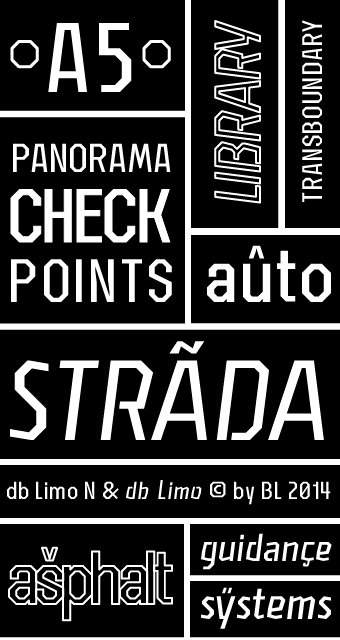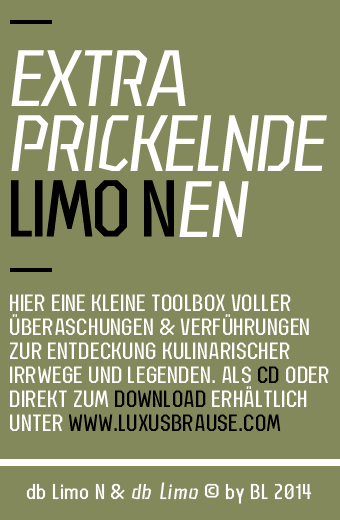
I like how the font works in the sort distances! Congrats! My only little black point is the descender part of the "y", too much vertical to me.
You know that a font is good if it used for a German poster.
I would pay for this font family! I'm with elmoyenique. There's just something with the 'a'. Also, have you tried a font that has more 'faithful' ends rather than 'Helvetica' ends?
Hm, maby you're right with the "y". I'm going to try something different.
@ Cohnisgone / Why it's only for German poster? I do not understand.
@ j4s13 What's wrong with "a"? What do you mean with Helvetica ends?
'Helvetica' is shown below. The 'a' could use a little more angle in the top right.
I've already heard of Helvetica. But I don't really see the connection between my 'a' and the Helvetica 'a'. Altogether I don't understand this comparison.
See the top left where the 'a' cuts off? It's straight horizontal. I would like to see 'db Limo N' with ends that are vertical.
Congratulations! FontStruct Staff have deemed your FontStruction worthy of special mention. “db Limo N” is now a Top Pick.
@ meek / Hey, that's great. I am very happy about it.
So Cool 10/10.